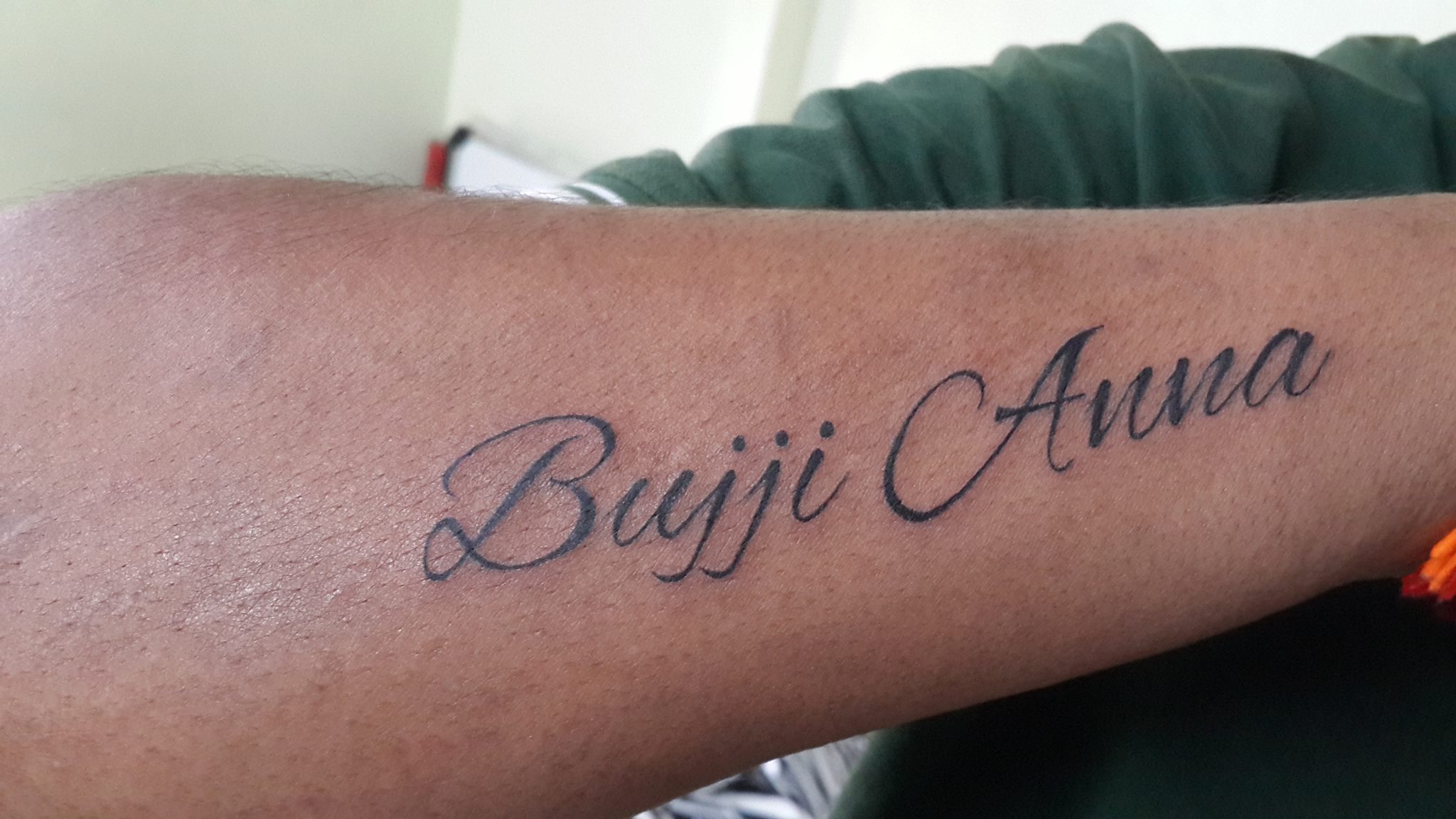
Theres something special about a typeface with a hand drawn element to it. On this page you can search your name prepared to make a nice tattoo with different types and fonts.
Introduction to name tattoos.
Tattoo fonts bujji name tattoo designs. I personally have tattoos so i understand the importance of choosing the right design we want for a tattoo. It doesnt really seem make much difference though. In this post we bring you a set of tattoo fonts you can use with your own design projects to create that same unique effect.
Many designers now use tattoo lettering fonts to give an artistic hand drawn look to their designs. Find and download the right font for your next tattoo. For if youre driven by.
However one must remember that name tattoos are permanent. Due to a more lightweight nature these hand drawn styles cant carry a design or work in display situations. 1001 free fonts offers a huge selection of free tattoo fonts for windows and macintosh.
Names are labels used to signify our identity. Name tattoos are and will always be popular. Name tattoos discover different tattoo designs.
These type styles tend to have a script or more playful feel. Thats where a new type trend comes in tattoo fonts. You have an alphabetically ordered list of women and men names.
25 free tattoo fonts with style. Name tattoos ideas font recommendations name tattoo designs. If you are looking to get the name in larger lettering using bolder fonts may be better suited.
The area in which you get your name tattoo design also plays a vital role in which font lettering you should use. How to draw your name by yourself. The inconsistent stylish and decorative designs of the tattoo.
For that reason they make great tattoos. Many people search on the internet for script tattoo designs with names. Learn about tattoos discover their symbolic meaning find inspiration collect the ones you like and easily contact the artists who created them to find out how you too can get an amazing design you wont end up regretting.